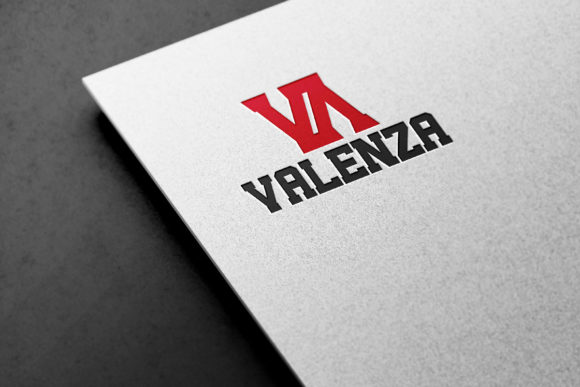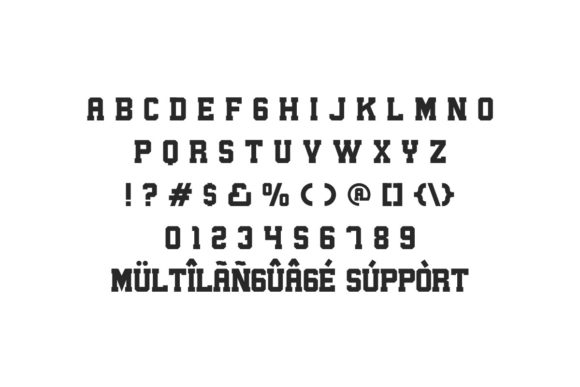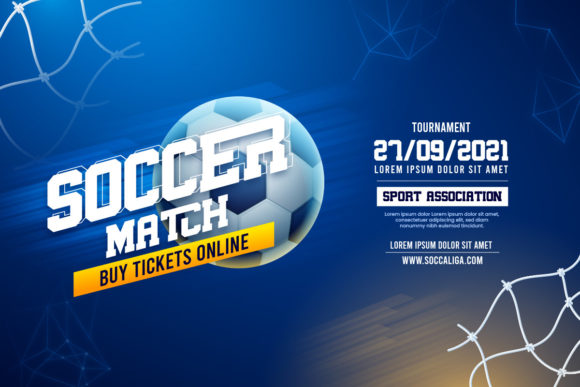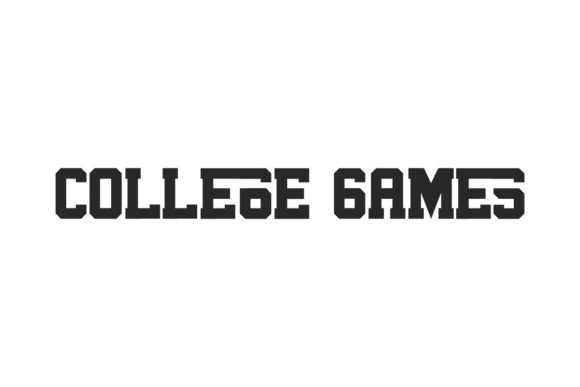
Introduction to College Games Font
College Games is a bold, thick lettered and sporty slab serif font.
Key Features of College Games Font
Why Choose College Games Font?
College Games Font offers exceptional quality and versatility, making it a valuable addition to your design toolkit. Whether you’re creating for personal projects or commercial use, College Games Font delivers professional results.